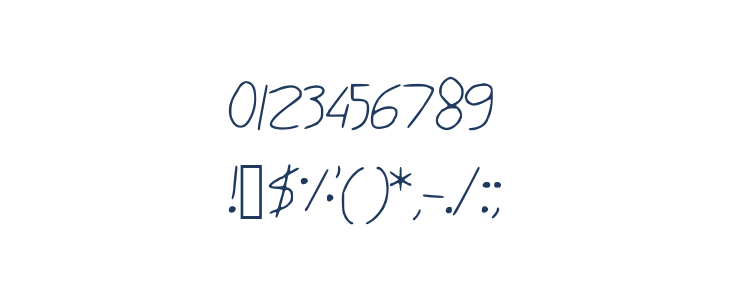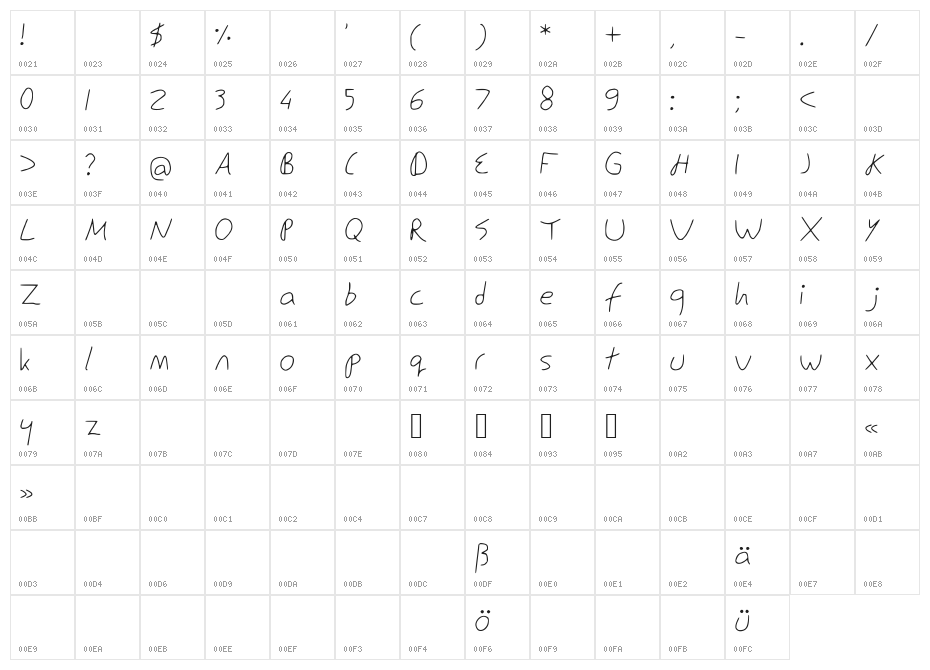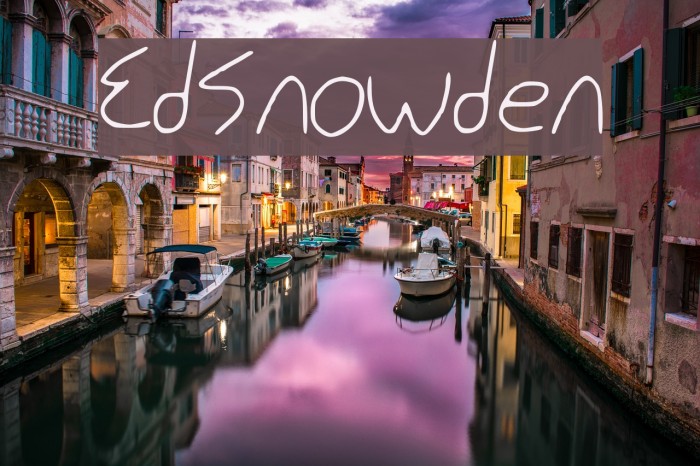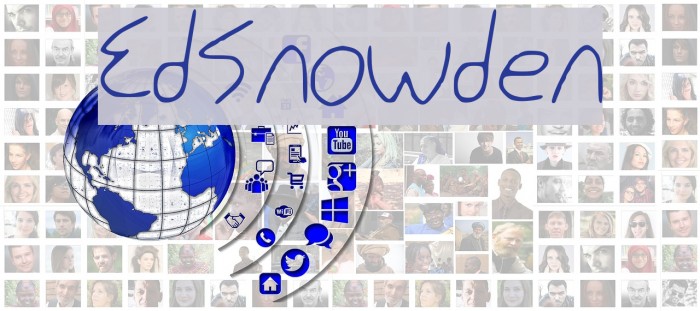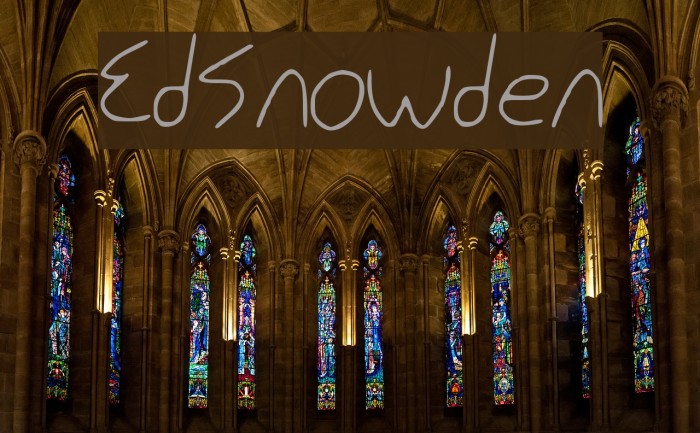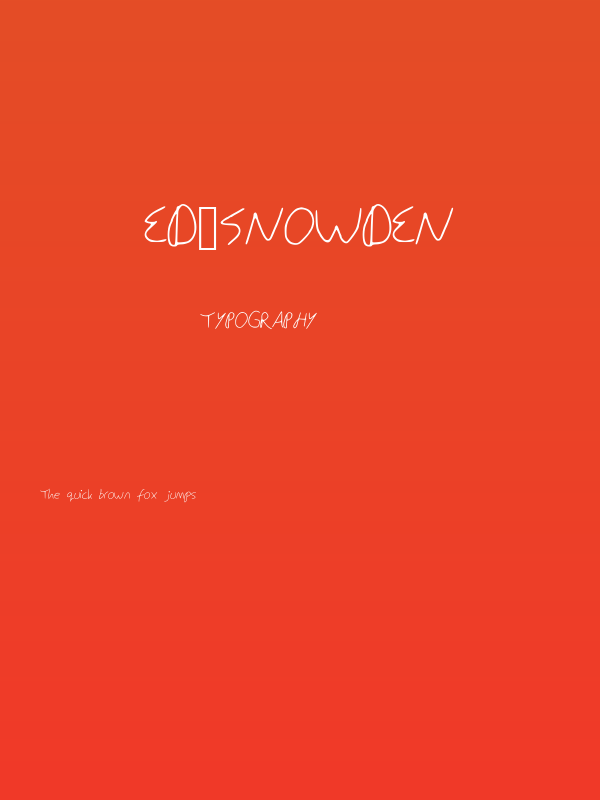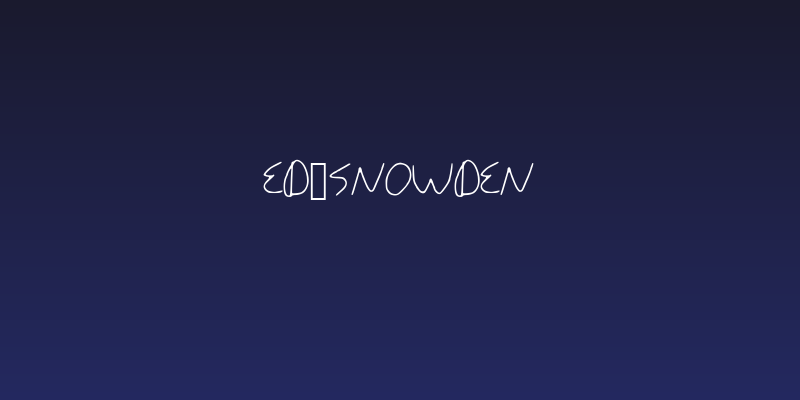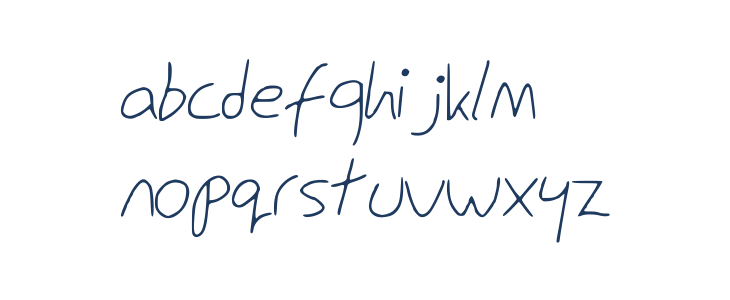
Ed_Snowden Font
Ed_Snowden Description
This font exhibits a playful and casual handwritten style, characterized by its loose and flowing strokes. The letters are slightly slanted, giving a dynamic and informal appearance. The uppercase and lowercase letters maintain a consistent style, with rounded edges and a natural, organic feel. The numerals and special characters follow the same aesthetic, ensuring uniformity across all glyphs. This font's relaxed and approachable nature makes it suitable for projects that require a personal touch.
| Overall Style | Casual |
| Use Case | Logos, Headlines, Informal Text |
| Proposed Projects | Ideal for greeting cards, personal notes, informal invitations, and creative projects that benefit from a personal, handwritten touch. |